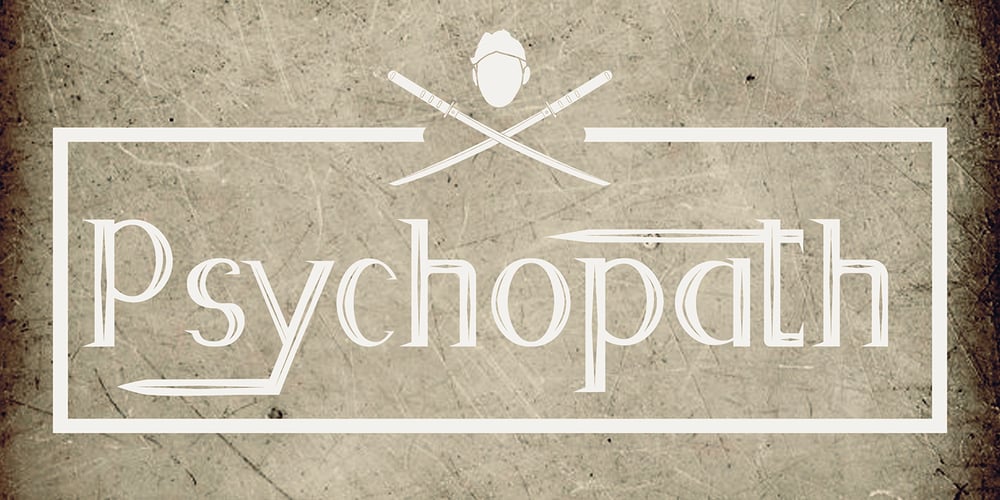
Psychopath Font Family was designed by Fajar Rachmadi Priyambada and published by DawnCreative.Id. Psychopath contains 1 styles and family package options. Psychopath is a display font with a katana effect. It’ll match spooky, horror, and Halloween theme design.